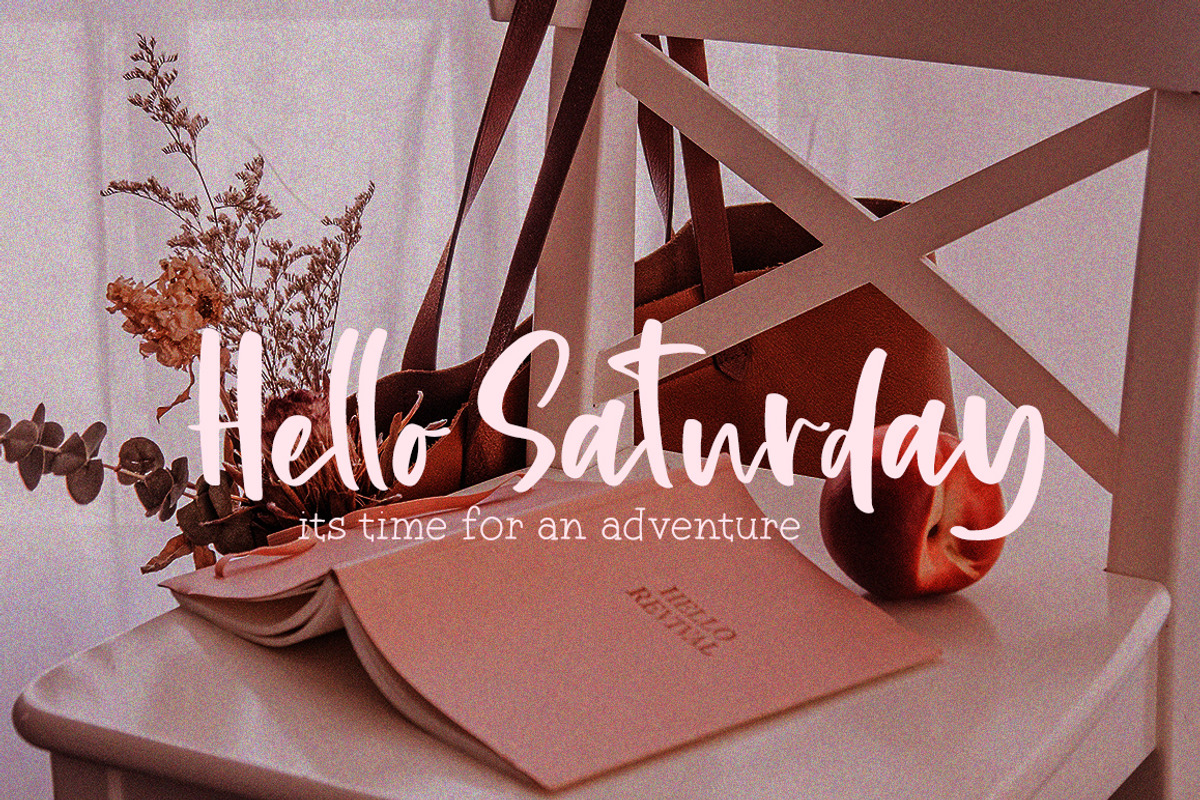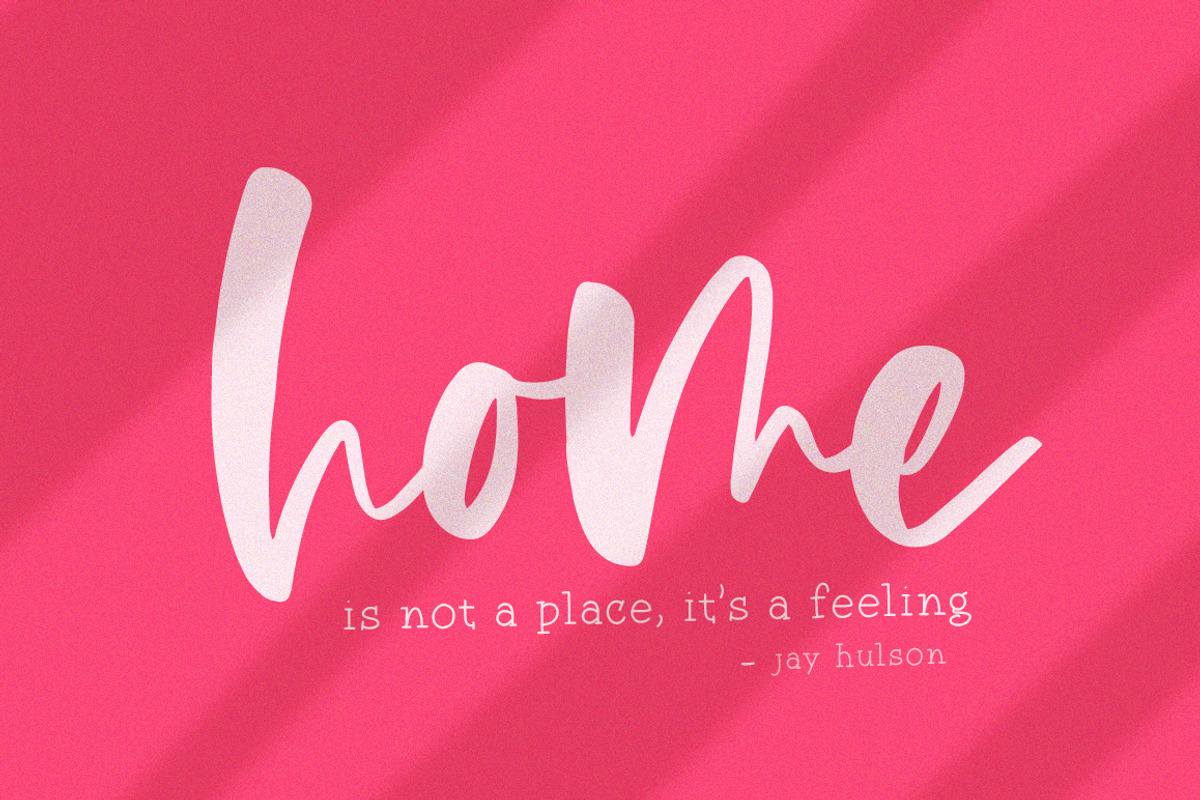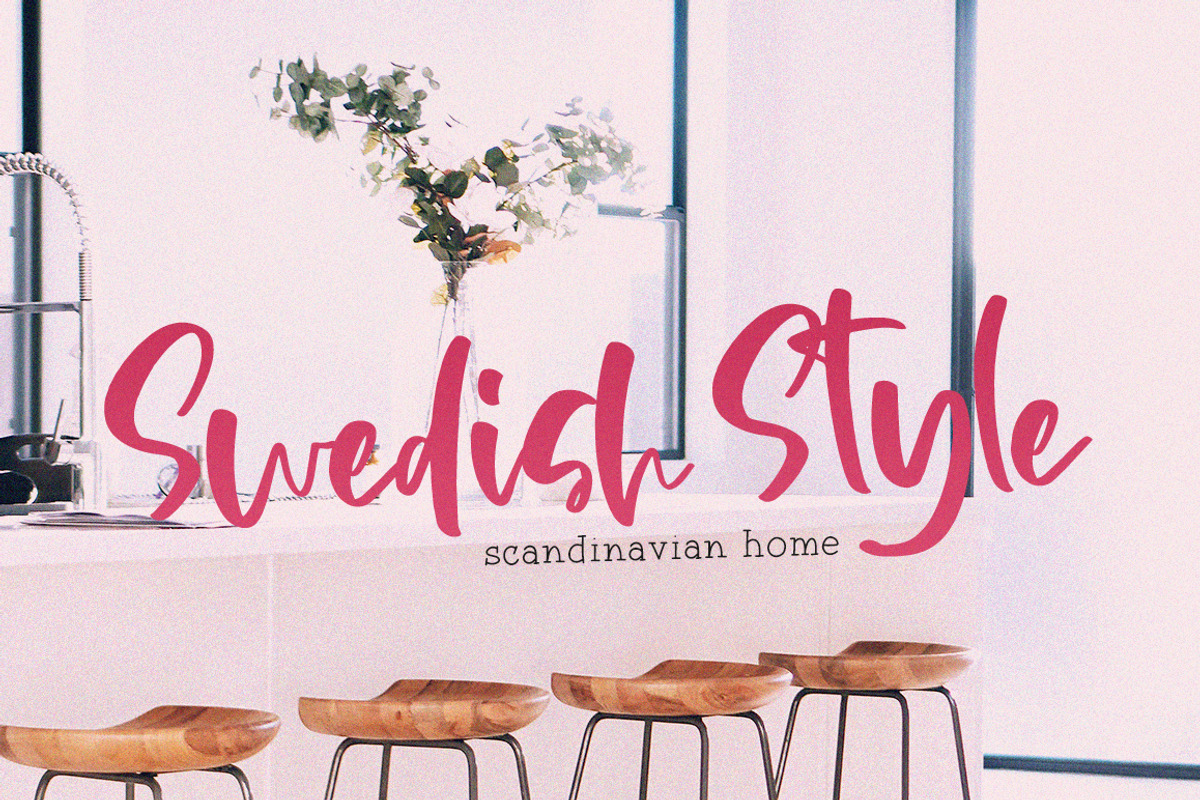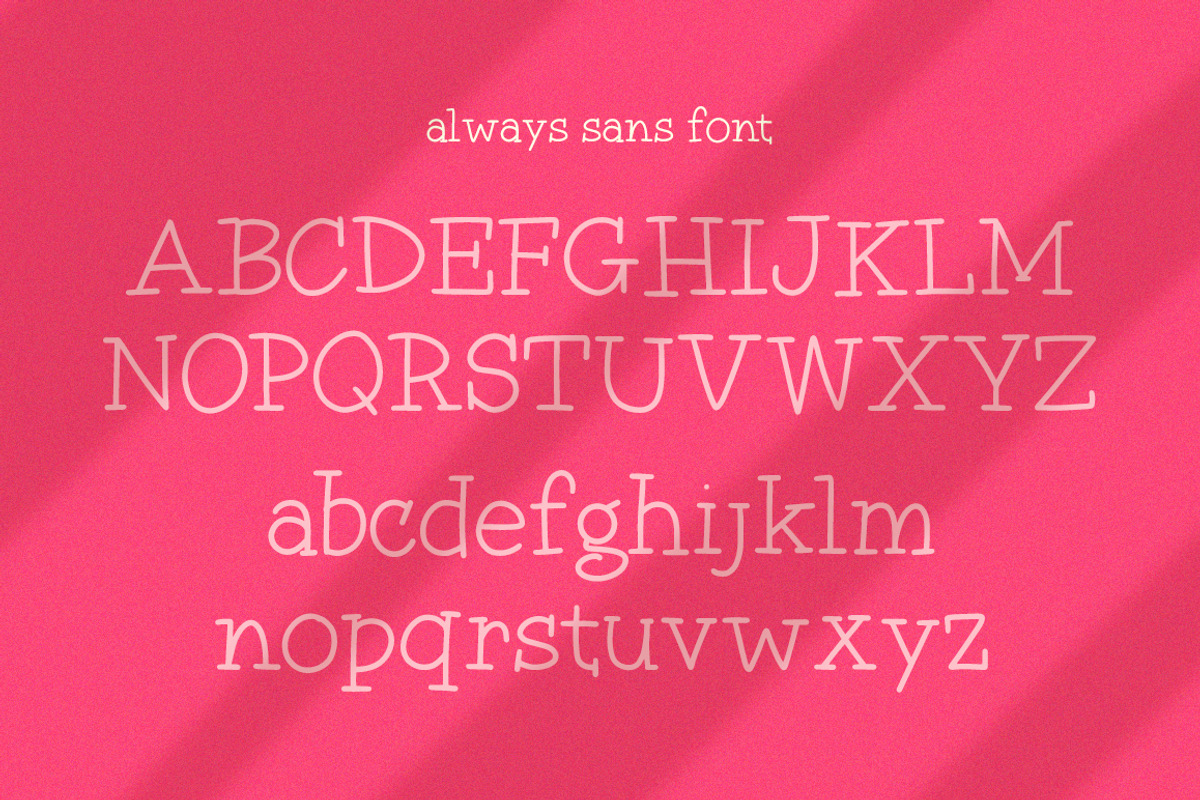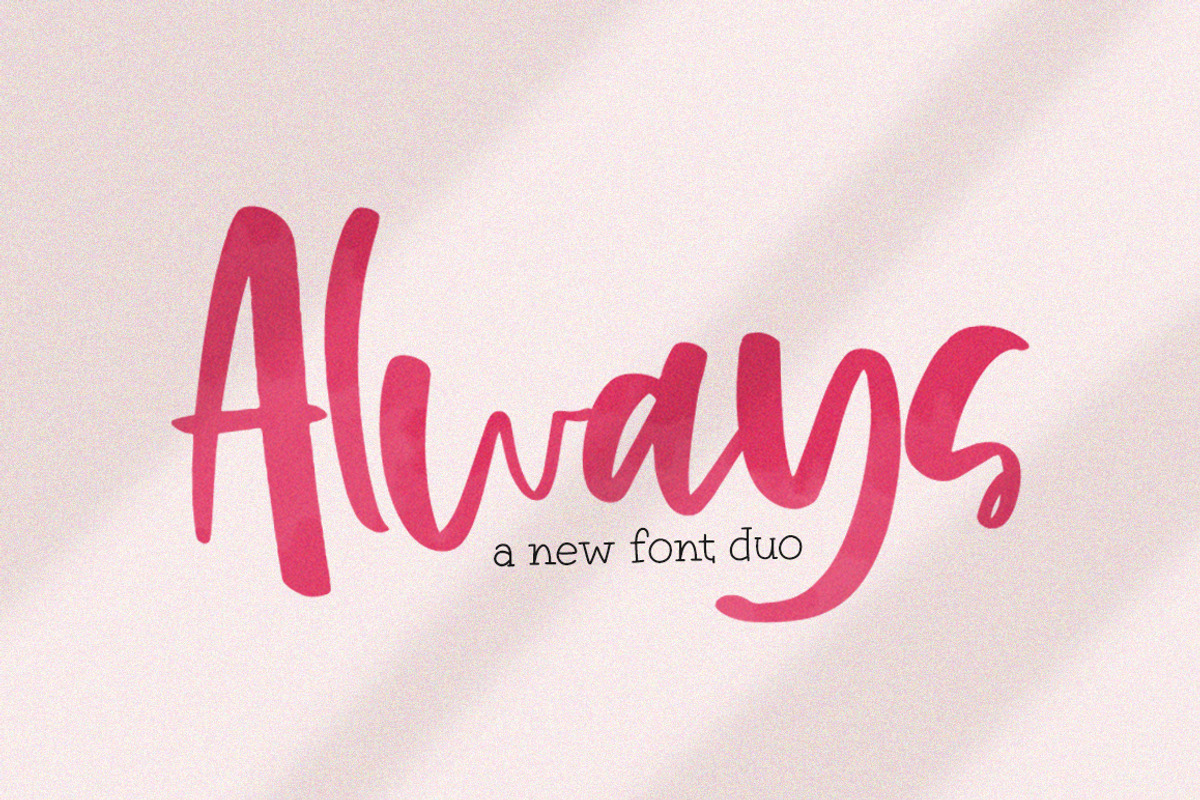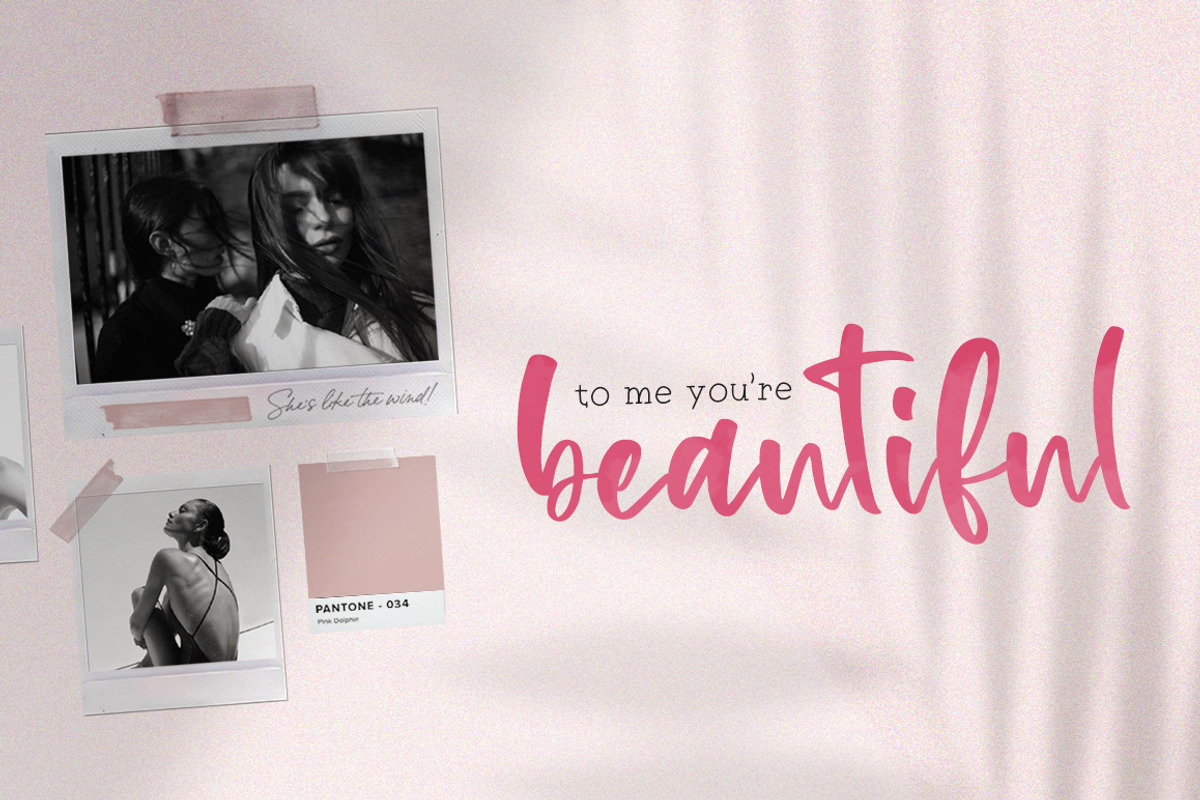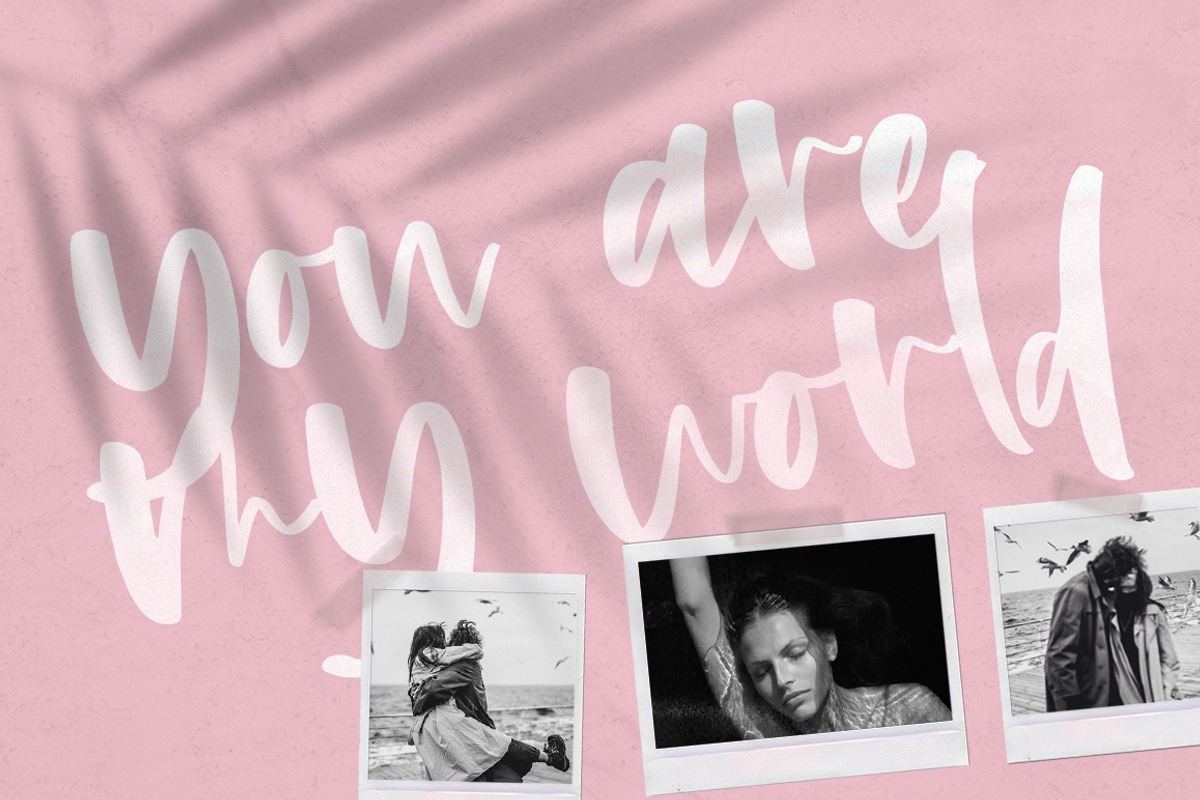
Always Font Duo
Always remember that fonts are for life, not just for Christmas! So treat yourself to a fabulous new duo - Always! A hand brushed beauty that pairs perfectly with its serif sweetie duo. Enjoy!
Why Always Font Duo is worth a look
Always Font Duo by Salt & Pepper Designs fits naturally into Branding, posters, packaging, typography.